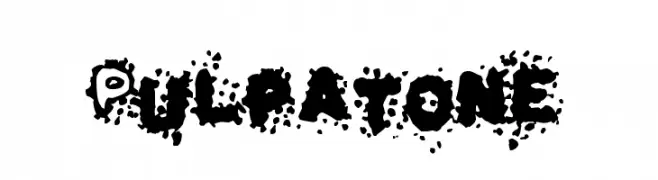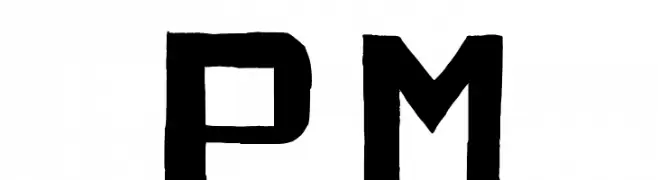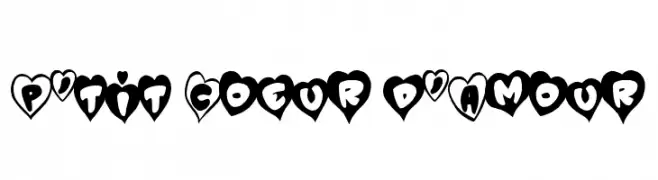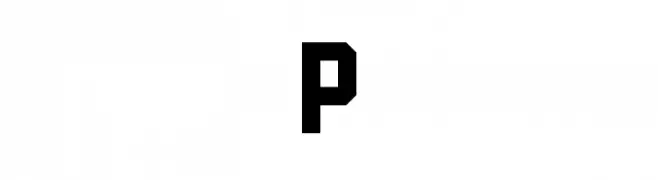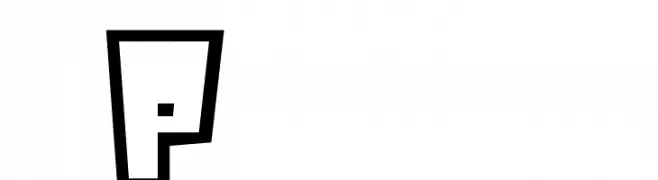
A bold, splatter-effect decorative font with a playful and artistic style.
A bold, playful font with an organic, hand-drawn appearance.
A bold, hand-drawn font with a vintage, playful style.
A bold, distressed font with a vintage, gritty texture.
A bold, industrial-style font with a rugged, vintage appearance.
Cartoon pirate-themed decorative font with unique illustrations for each character.
A decorative font with characters enclosed in heart shapes, perfect for romantic themes.
A playful, hand-drawn collection of romantic speech bubbles and doodles.
A bold, geometric font with strong, angular lines and a modern aesthetic.
Bold, blocky font with thick outlines and geometric style.